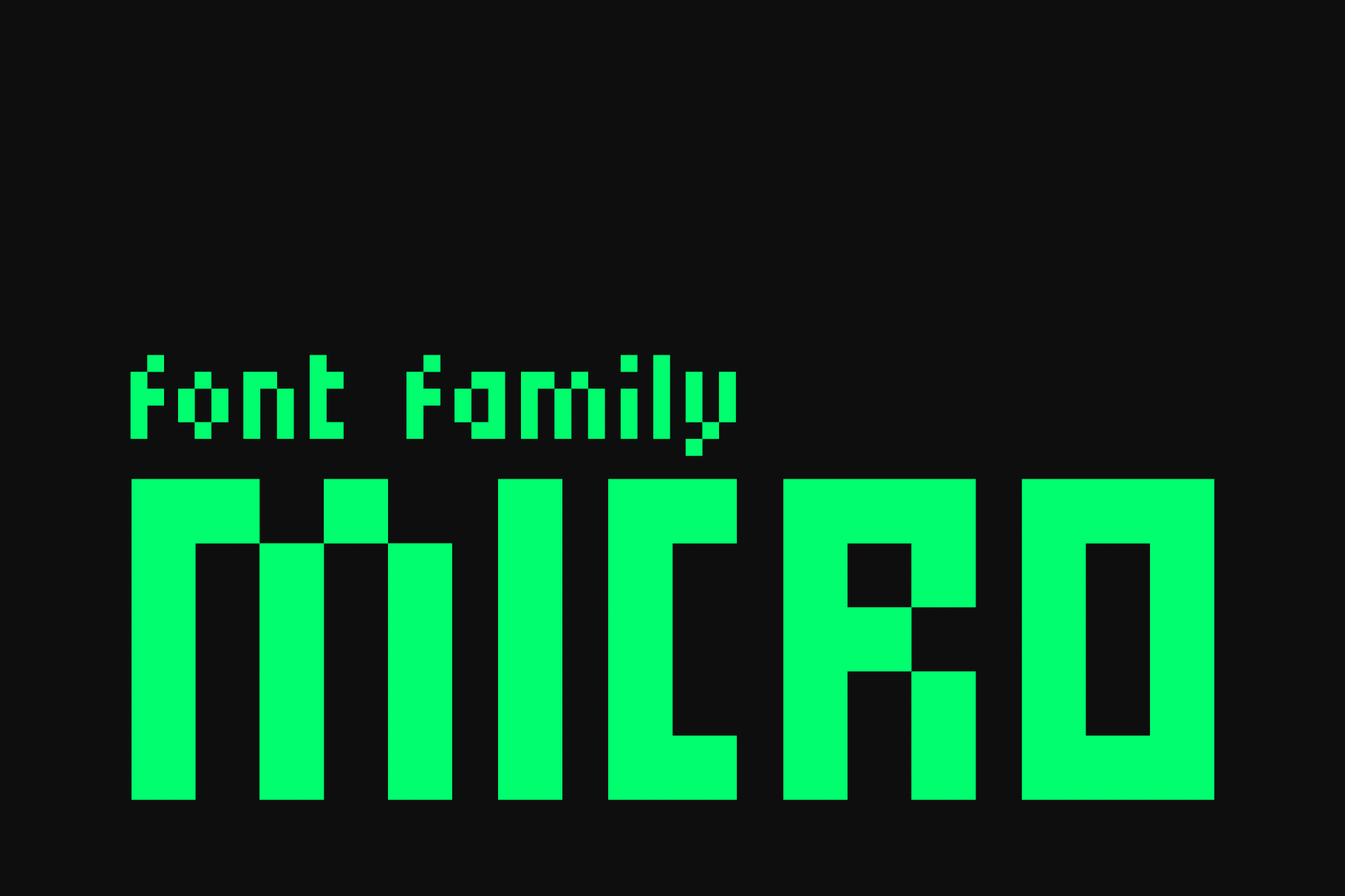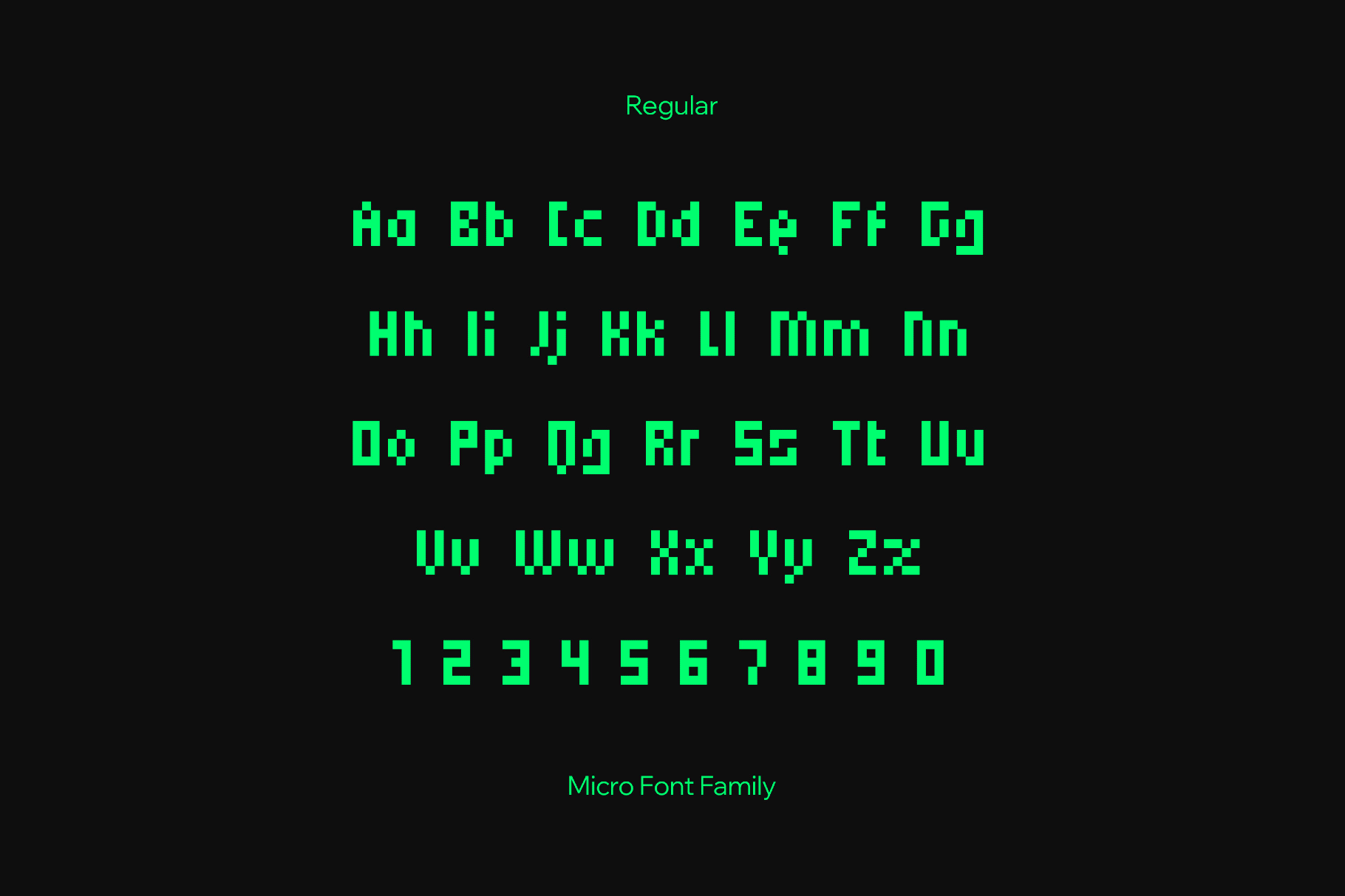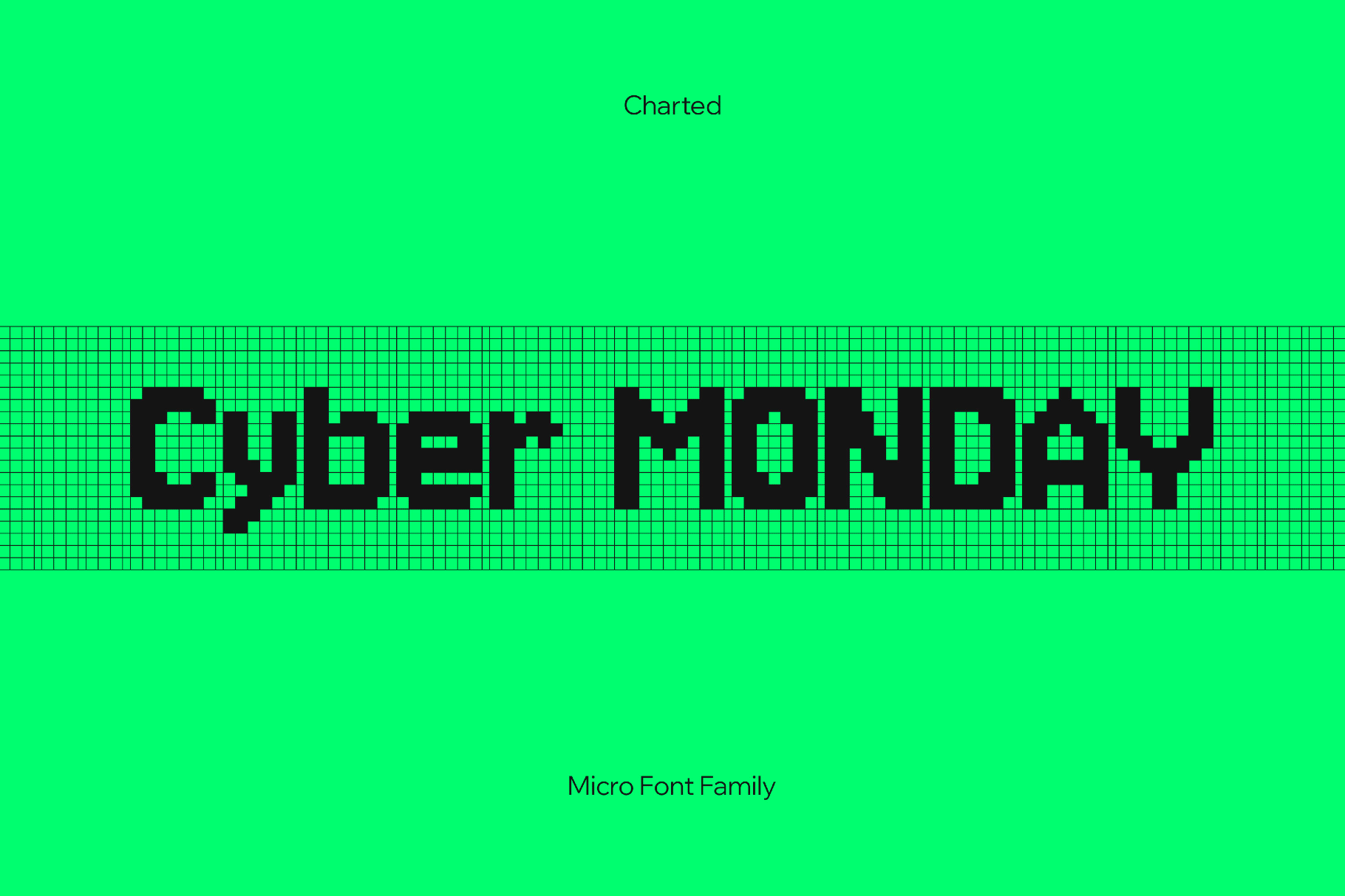
Micro Font Family
Micro builds its entire voice from rigid pixels and tightly packed squares. Single-step diagonals, abrupt corners, and chunky verticals keep letters upright and legible when space is scarce — from one-color repeats to dense jacquards.
The font is suitable for tech-leaning identities, UI mockups that reference 8-bit or 16-bit aesthetics, and device or tool labelling systems. It works well for data-driven posters, glitch-inspired visuals, esports branding, compact headlines, packaging for electronics, and experimental music releases.